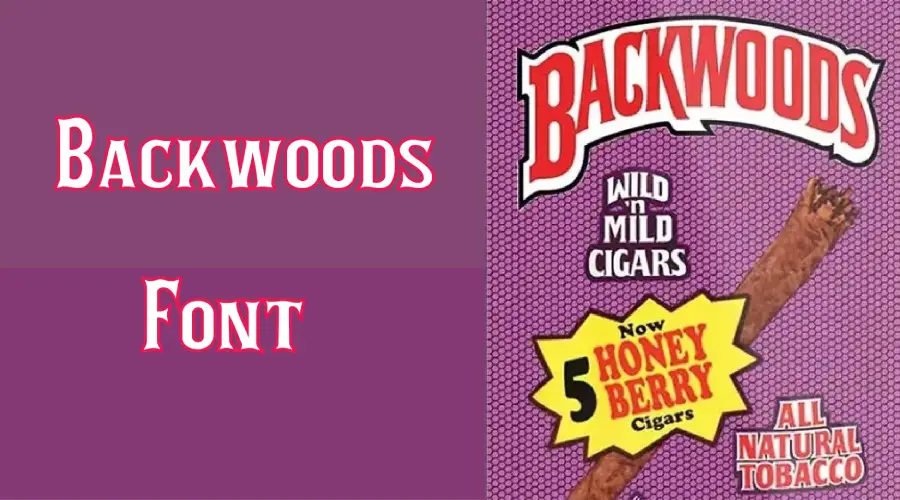
So what is Backwoods font? In the United States, Backwoods is known for its naturally wrapped cigars and cigarillos. A popular brand since 1973, its packaging features a frayed end, a tapered body, and an unfinished head. The logo, characterized by letters with tiny serifs, has garnered attention from designers and typographers alike.
The Backwoods logo, which features letters with tiny serifs is a customized logo. But if you are looking for the font in the logo, we found a font that matches the logo. The closest font we can find that resembles lettering is Aka Posse designed by AkaType. Aka Posse is a western style serif font with a vintage and retro feel.
The font creates a unique and memorable brand identity for the cigar company. It reflects the product’s natural and authentic quality, as well as its origins and history. The font also conveys a sense of excitement, independence, and energy, which appeals to the brand’s target audience. Even at small sizes, the font is legible and easy to read.
Aka Posse is suitable for design projects with a natural and rustic touch. You can use this font for logos, headlines, posters, labels, and other design projects related to Backwoods-theme. This font also conveys a sense of adventure, freedom, and wildness, which appeals to your target audience. So, if you want an attention-grabbing style, this is definitely the one for you!
Aka Posse is the font that matches the Backwoods logo font most. It’s a blend of history, culture, and design that resonates with both cigar enthusiasts and designers. While the exact origins of the font remain a topic of debate, its impact on design and branding is undeniable. And you can always use the alternative Aka Posse for your design projects.